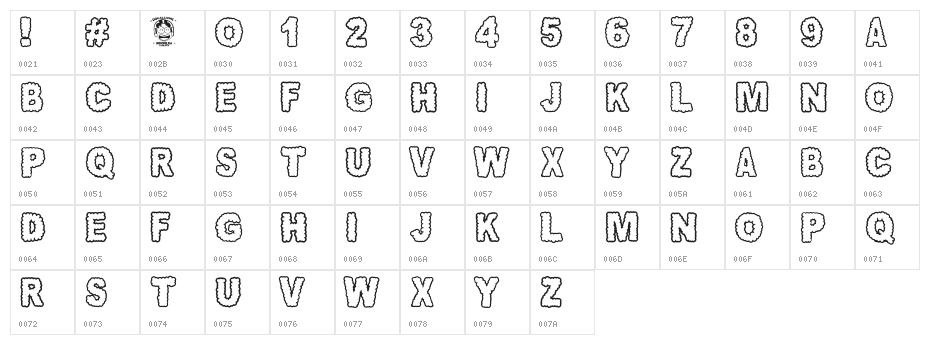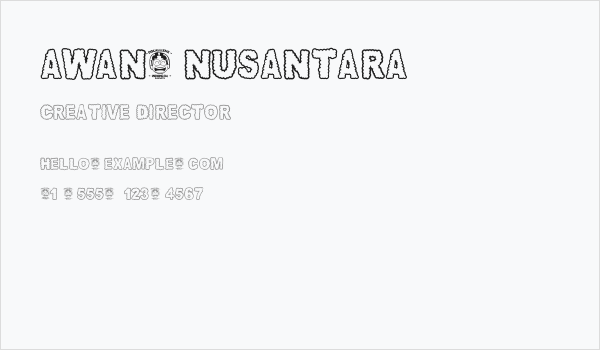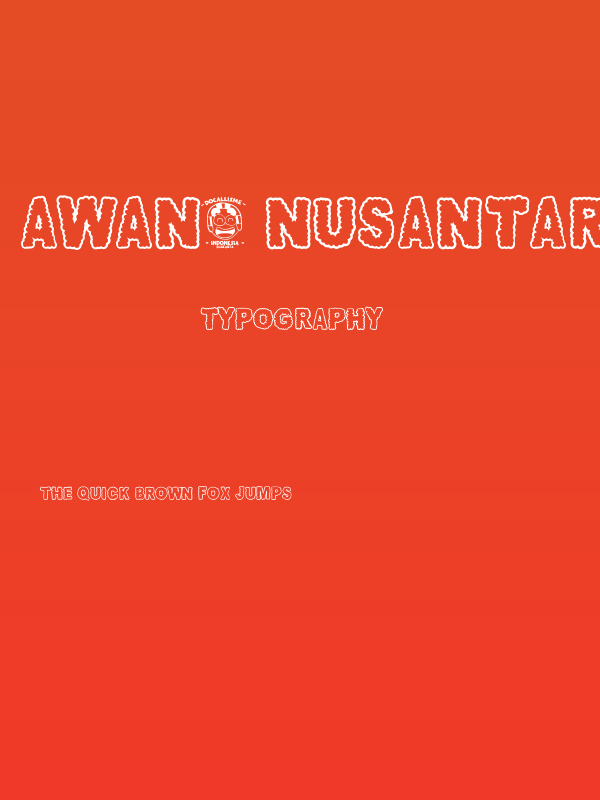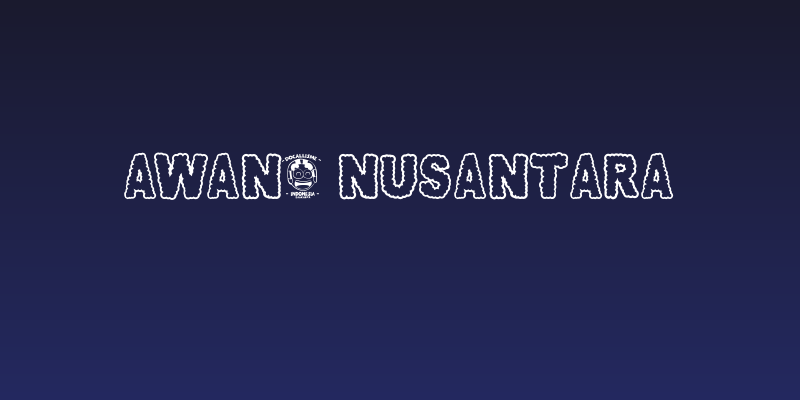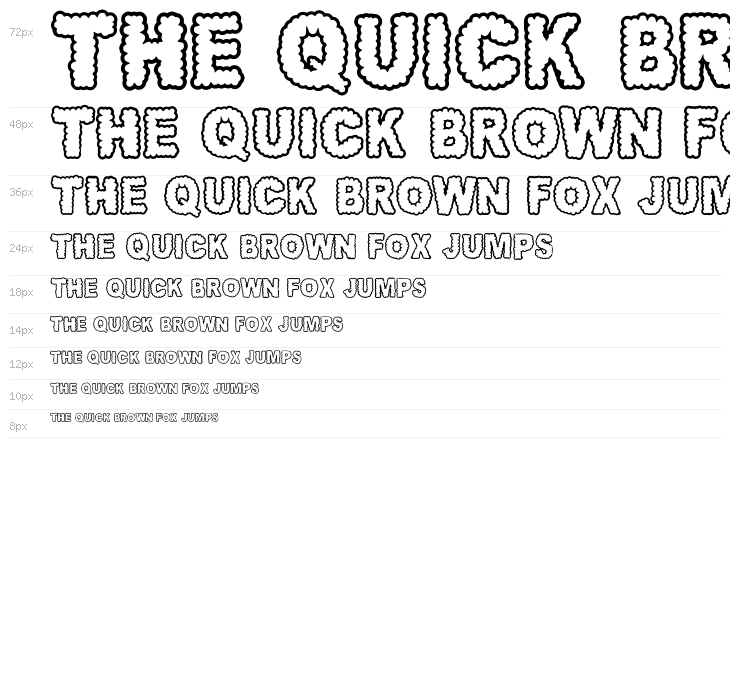
AWAN-NUSANTARA Font
AWAN-NUSANTARA Description
This font is characterized by its bold and impactful design, featuring strong lines and a modern aesthetic. The characters are well-defined with a consistent stroke weight, making it highly legible and suitable for various applications. The uppercase letters are particularly striking, with a commanding presence that draws attention. The lowercase letters maintain the same level of clarity and readability, ensuring a cohesive look across different text sizes. The numerals are straightforward and align well with the overall style of the font. Special characters are included, adding versatility for diverse typographic needs.
| Proposed Projects | Ideal for branding, headlines, posters, and digital media where a strong visual impact is desired. |